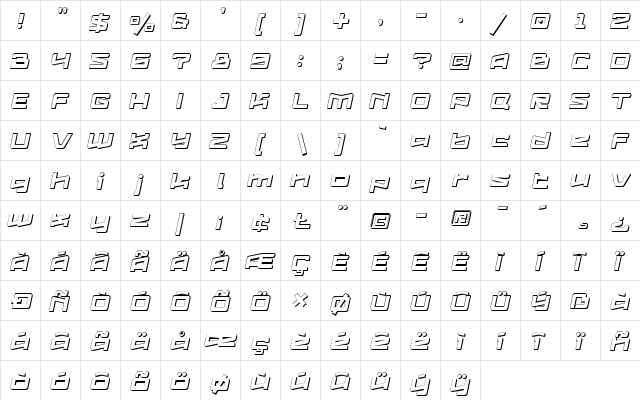
Logofontik 4F Extruded Italic
Extruded Italic · Sergiy S. Tkachenko Sergiy S. Tkachenko ·
DesignerSergiy S. Tkachenko
Design Context for Logofontik 4F Typeface
Logofontik 4F is a composed and adaptable typeface that performs quietly and consistently across a wide range of design contexts. Its italic angle brings a sense of urgency and motion to the letterforms.